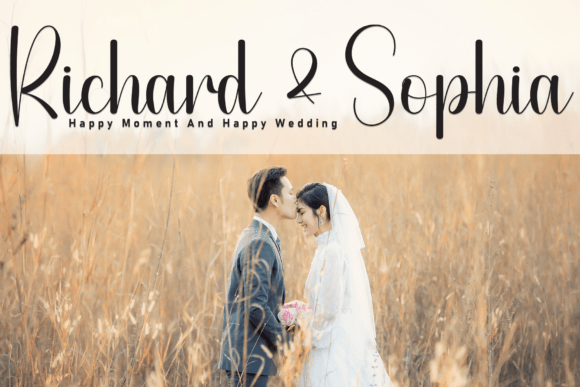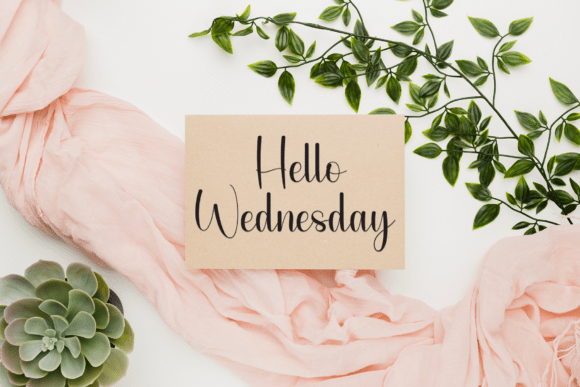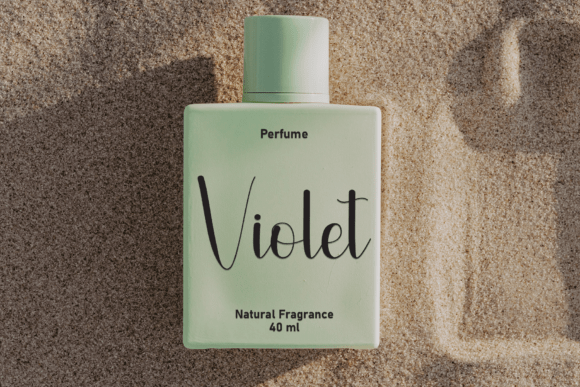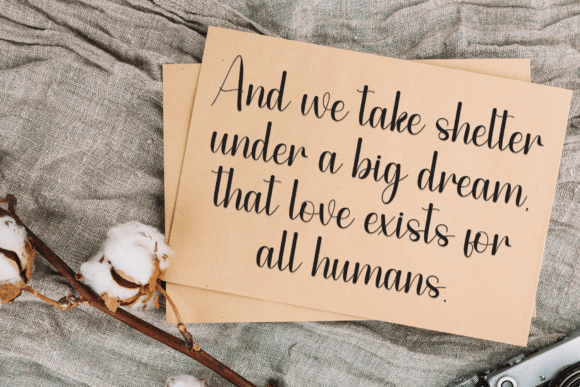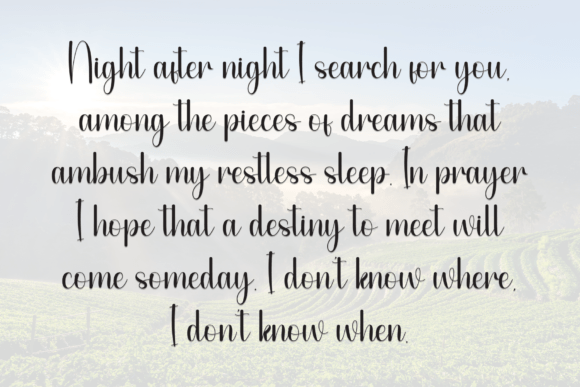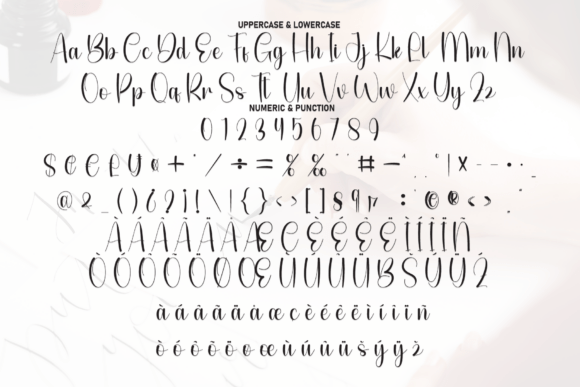
Unleashing the Magic of Handwritten Font
As you sit down to craft a heartfelt message for a loved one, the pen glides effortlessly across the paper, leaving a trail of emotions and thoughts. You’re about to create something truly special, a gesture that will be cherished for years to come. And that’s where the perfect font comes in – a tool to elevate your message and make it truly unforgettable.
Introducing the Handwritten Font, a beautifully crafted script font that adds a touch of warmth and elegance to any design. Whether you’re creating wedding invitations, greeting cards, or any other creative project, this font is the perfect choice to bring your vision to life. For designers, it’s a valuable asset that offers a unique blend of refinement and playfulness, allowing you to create truly captivating visual poetry.
Handwritten Font Key Features
- Unique Characteristics: Handwritten Font features a unique, cursive script with subtle irregularities, giving it a personal and organic feel.
- Language Support: The font supports a wide range of languages, including Latin, Cyrillic, and Greek alphabets, making it suitable for multilingual designs.
- Kerning and Ligatures: The font includes advanced kerning and ligature features, ensuring smooth text flow and elegant typography.
Handwritten Font Review
I’ve had the chance to work with the Handwritten Font, and overall, it’s a beautiful and unique addition to any design project ✨. The font’s organic feel and imperfections give it a human touch that’s perfect for creating a personal or emotional connection with the audience.
Here are some of the things that work well with this font:
- ✨ Highly customizable: The font offers a range of variations and styles that can be easily mixed and matched to suit different design needs.
- ✨ Versatile: Handwritten Font works well for a wide range of projects, from branding and advertising to digital and print materials.
- ✨ Unique: The font’s imperfections and irregularities give it a one-of-a-kind feel that’s hard to find in more traditional fonts.
- ⚠️ Readability: While the font is beautiful, it can be difficult to read in certain contexts, particularly in small sizes or with low contrast backgrounds.
- ⚠️ Limited legibility: Some characters may be harder to distinguish than others, which can lead to confusion or misinterpretation.
Overall, the Handwritten Font is a great choice for designers looking to add some personality and whimsy to their projects ✨. Just be mindful of the potential limitations and use it in contexts where it will shine.
Practical Application Guide: Handwritten Font
To get the most out of a handwritten font, use it sparingly and in creative ways, such as:
– Adding a personal touch to invitations or greeting cards
– Creating a unique logo or brand identity
– Using it to add emphasis to key points in a presentation or document
Handwritten fonts are commonly used in:
– Personalized gifts and cards
– Branding and logo design
– Creative writing and typography projects